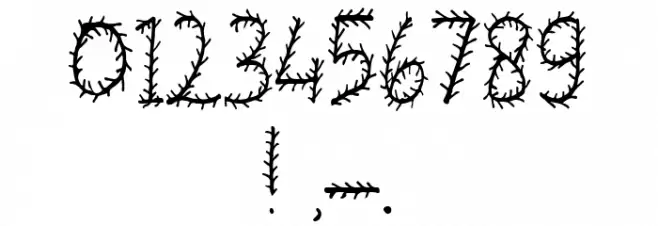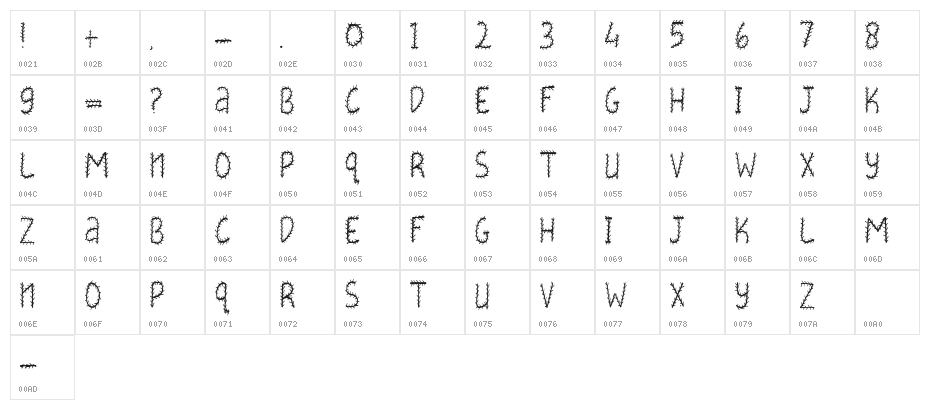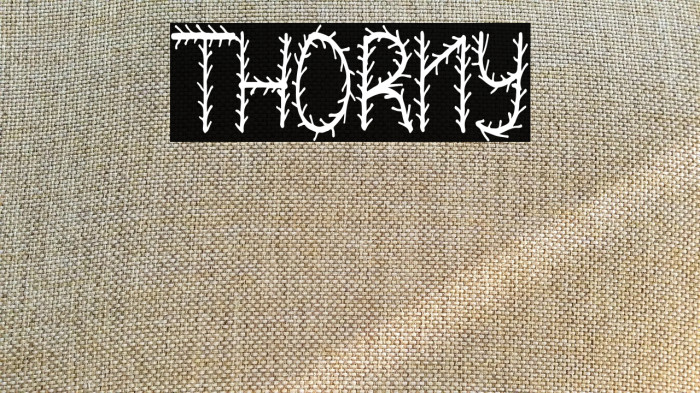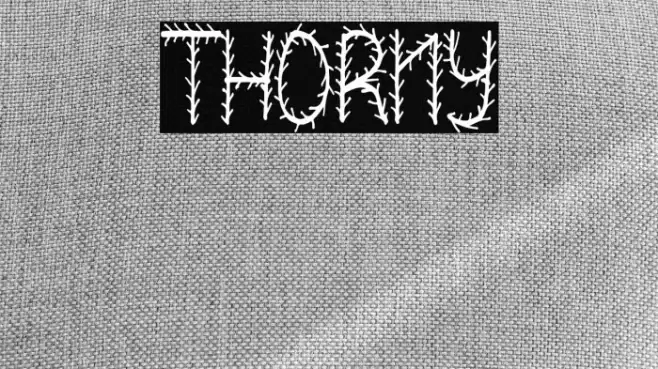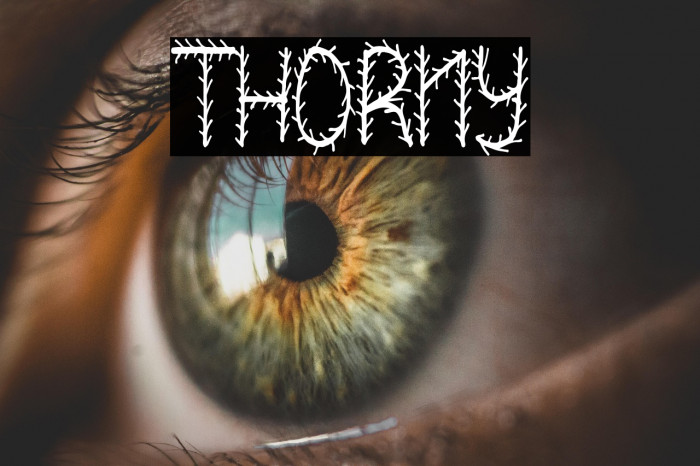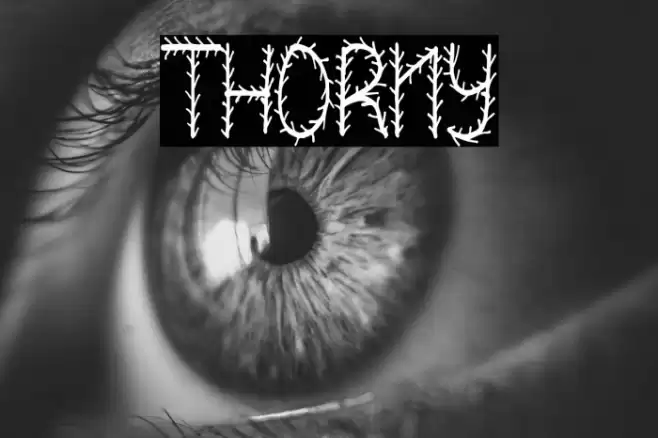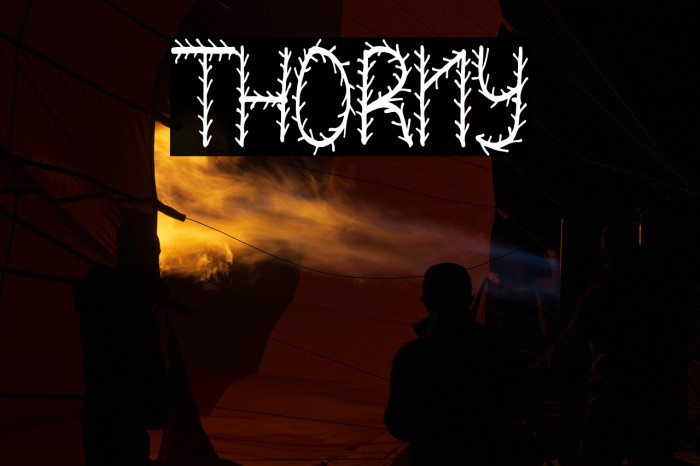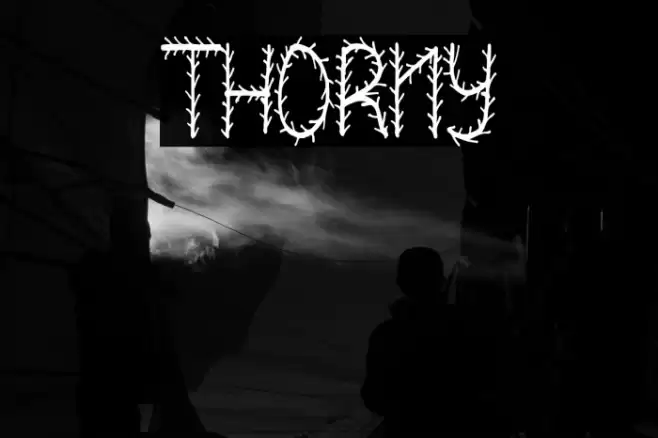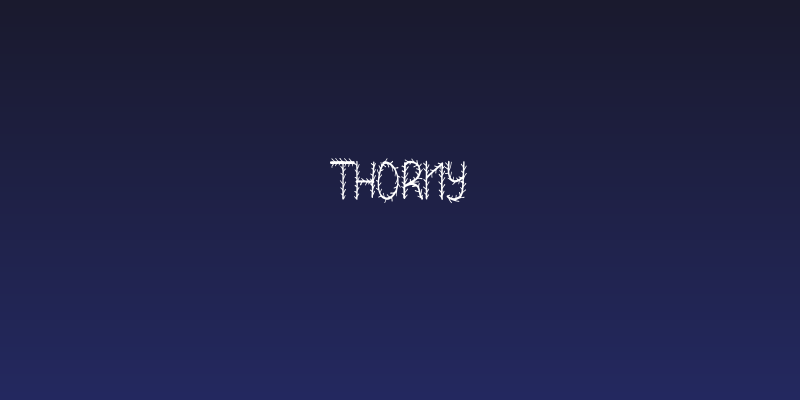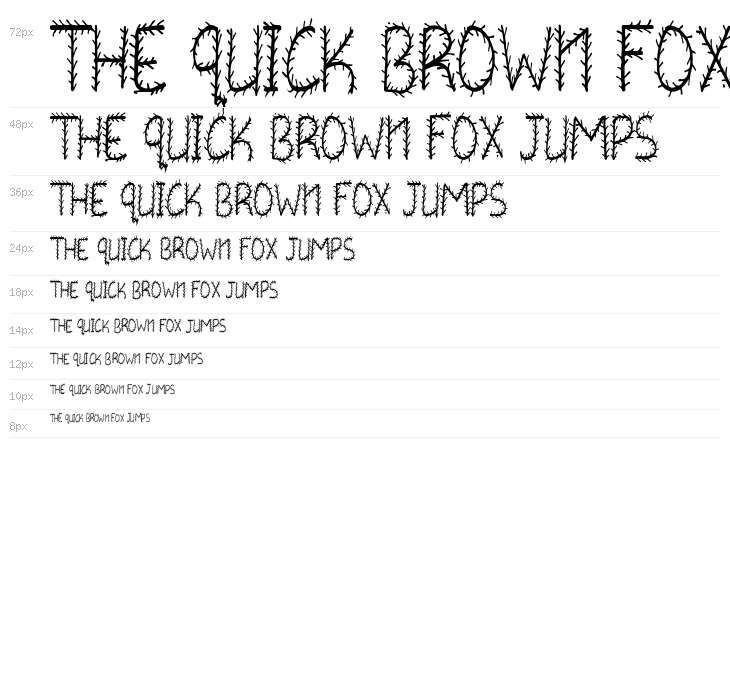
THORNY Font
THORNY Description
This font features a unique and striking design where each character is adorned with thorn-like embellishments, giving it a rugged and edgy appearance. The letters are crafted with a consistent thorny motif, creating a sense of danger and intrigue. The uppercase and lowercase letters maintain a uniform style, while the numbers and special characters follow the same thematic design. This font stands out with its decorative and bold presentation, making it ideal for projects that require a dramatic and eye-catching typeface.
| Proposed Projects | Perfect for horror-themed posters, edgy branding, Halloween invitations, or any project needing a bold and dramatic typeface. |